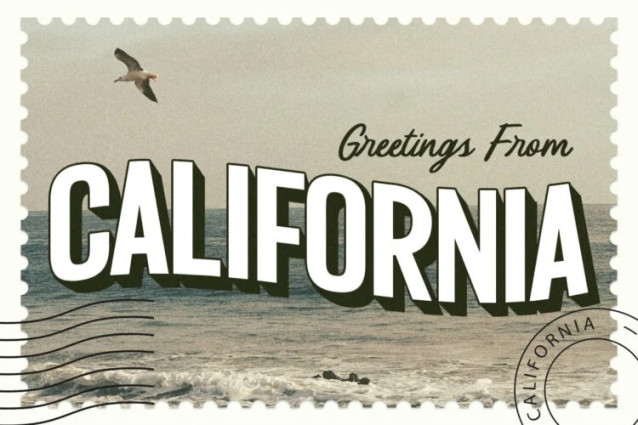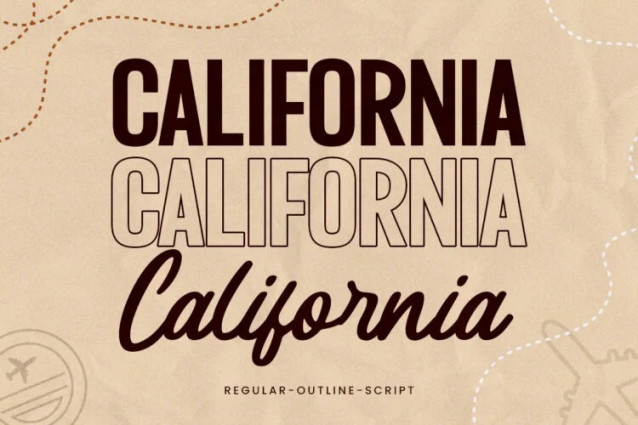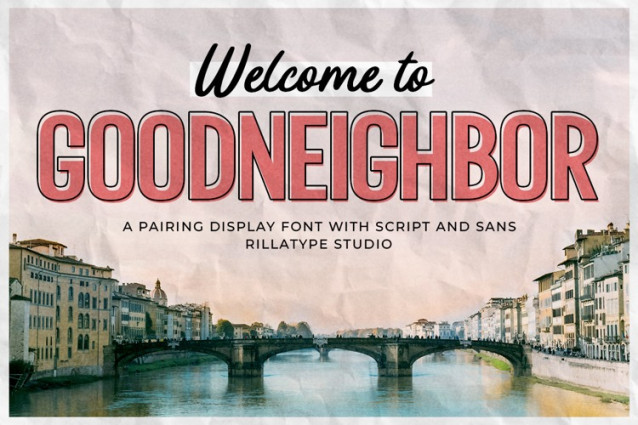
RT Goodneighbor Script Font
RT Goodneighbor Script Font a versatile vintage font duo designed to bring a nostalgic charm to your projects. This duo features a beautifully crafted script font paired with a classic sans serif, along with an elegant sans serif outline version. Perfect for creating eye-catching logos, stylish invitations, retro posters, and timeless packaging, Goodneighbor effortlessly blends the past with the present. Whether you’re aiming for a sophisticated or playful look, this font duo ensures your designs stand out with a touch of vintage flair. Add Goodneighbor to your font collection and elevate your creative work with its unique and charming character.